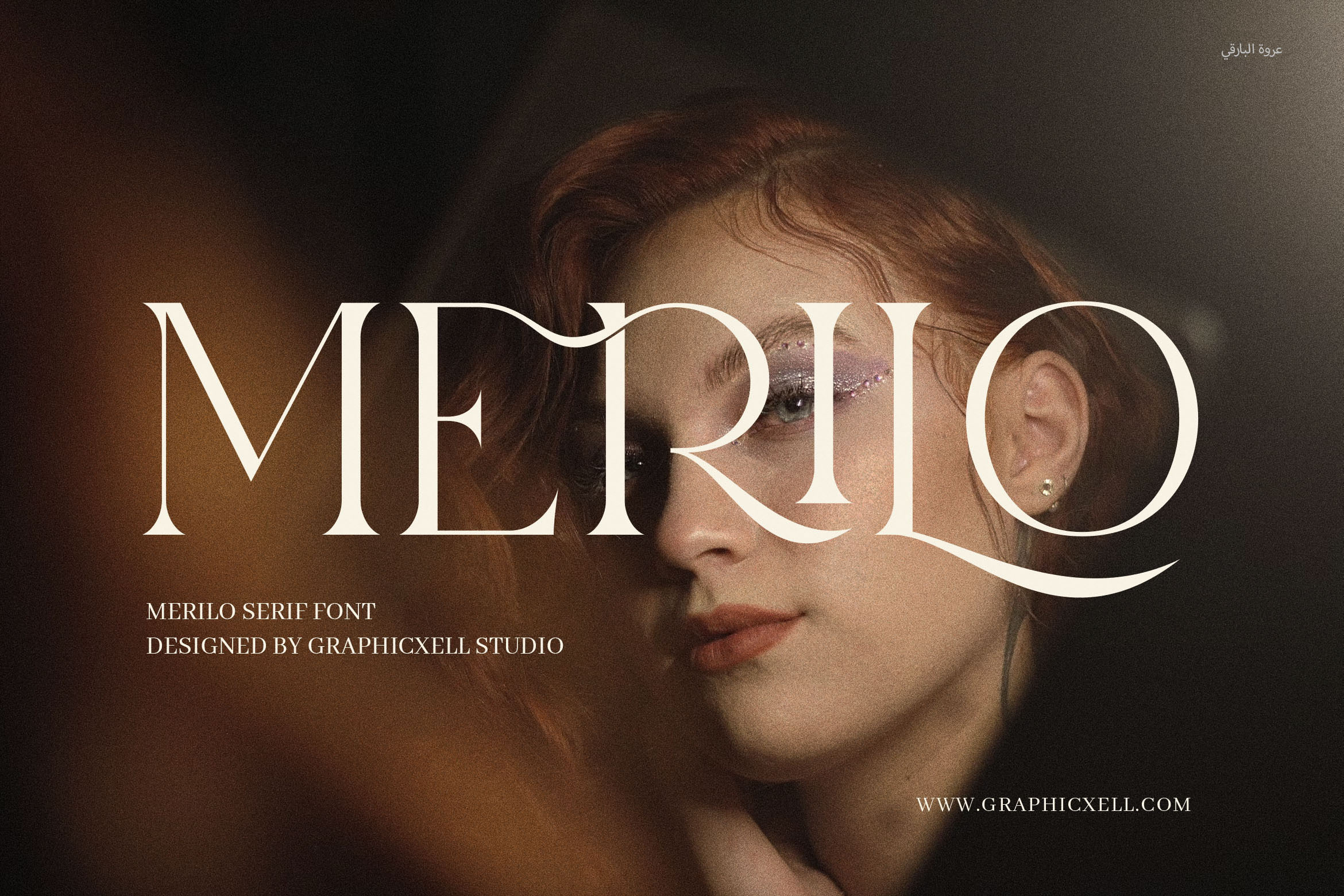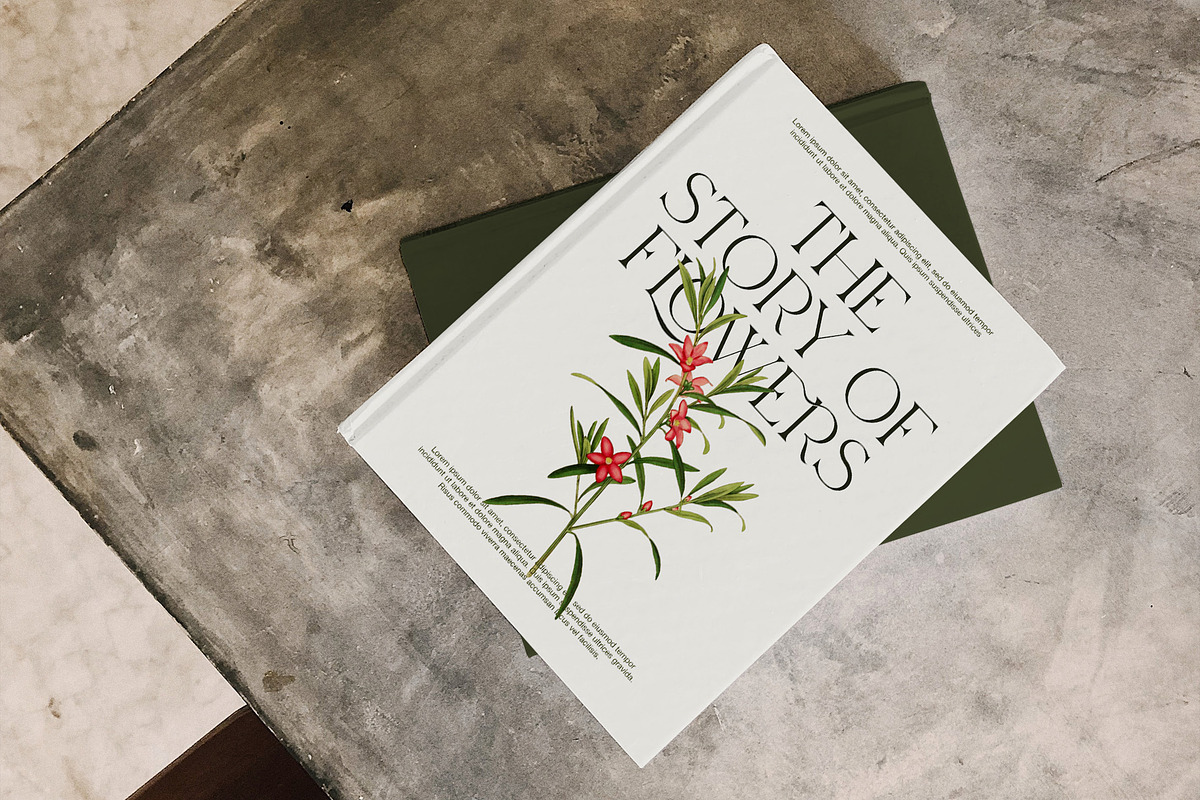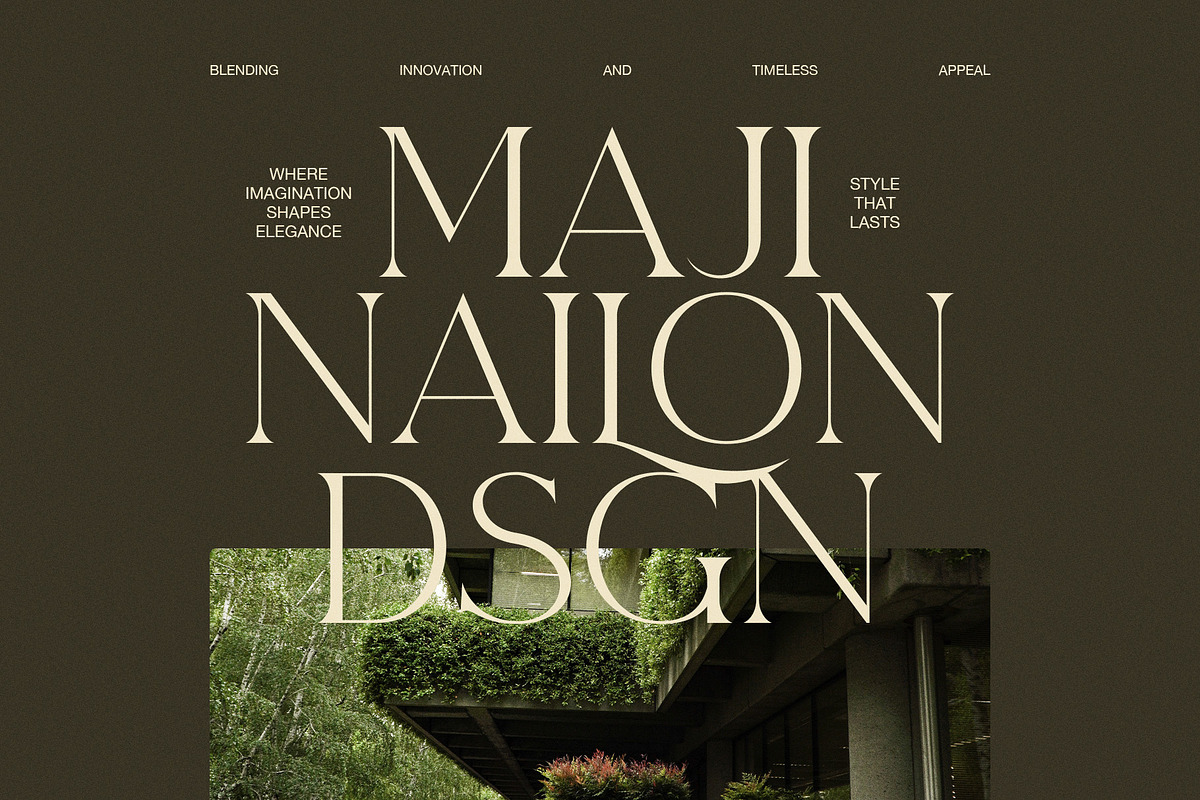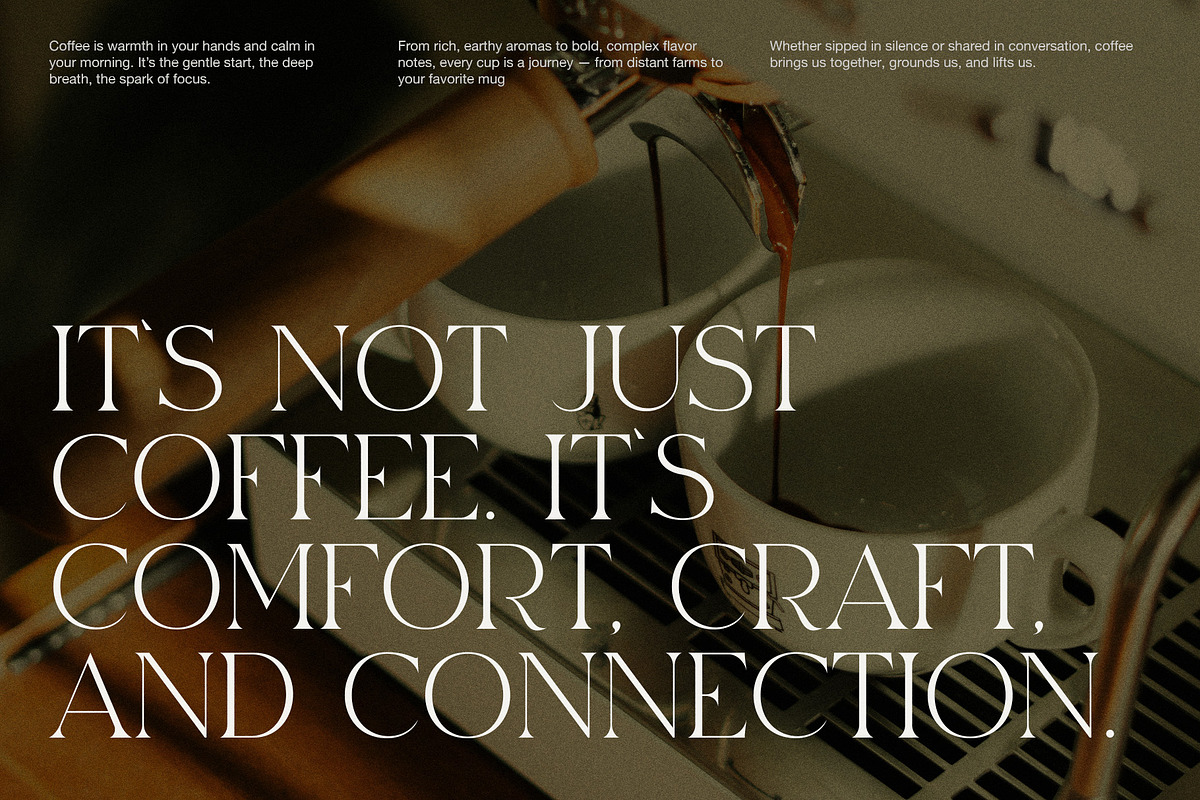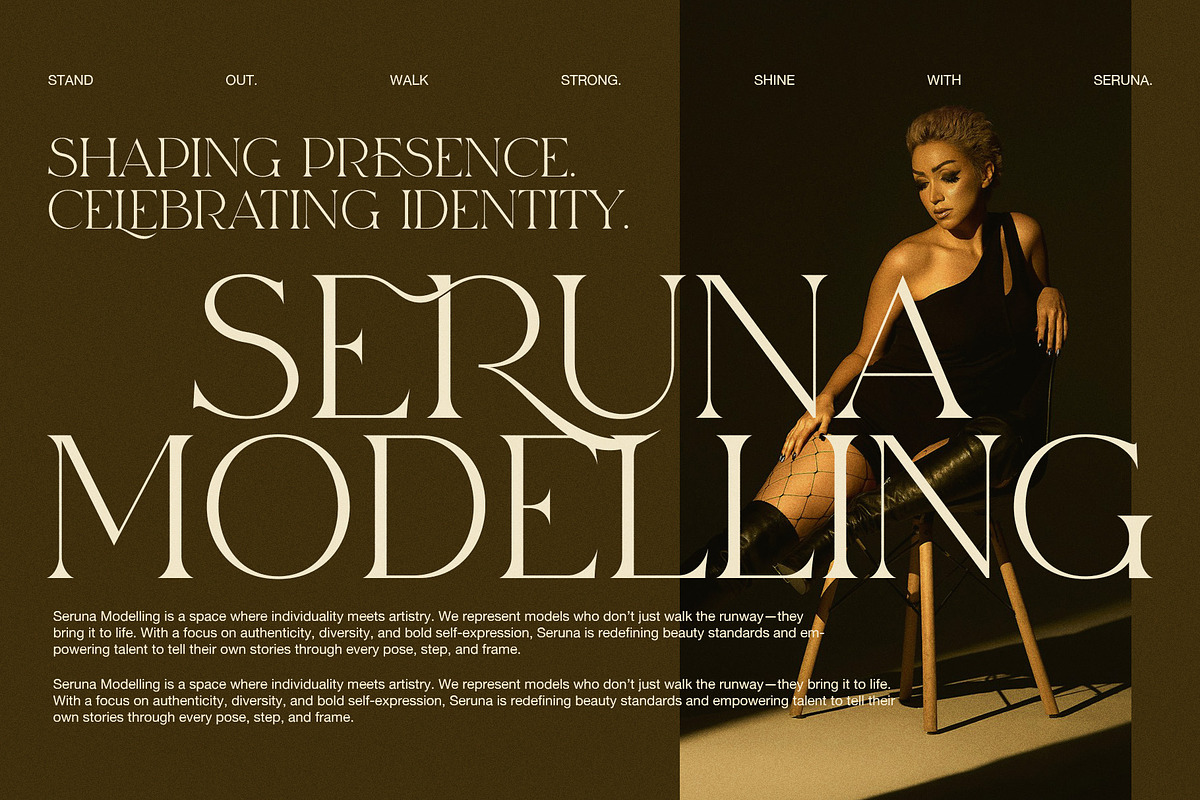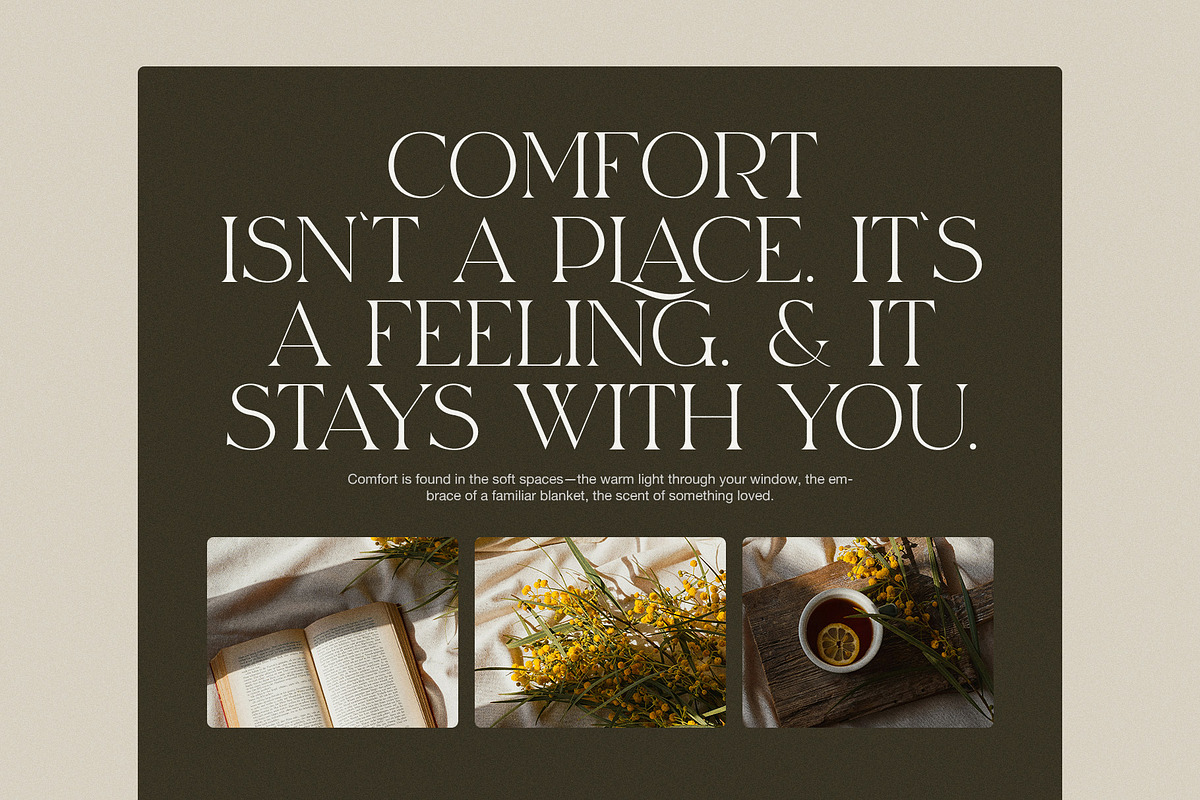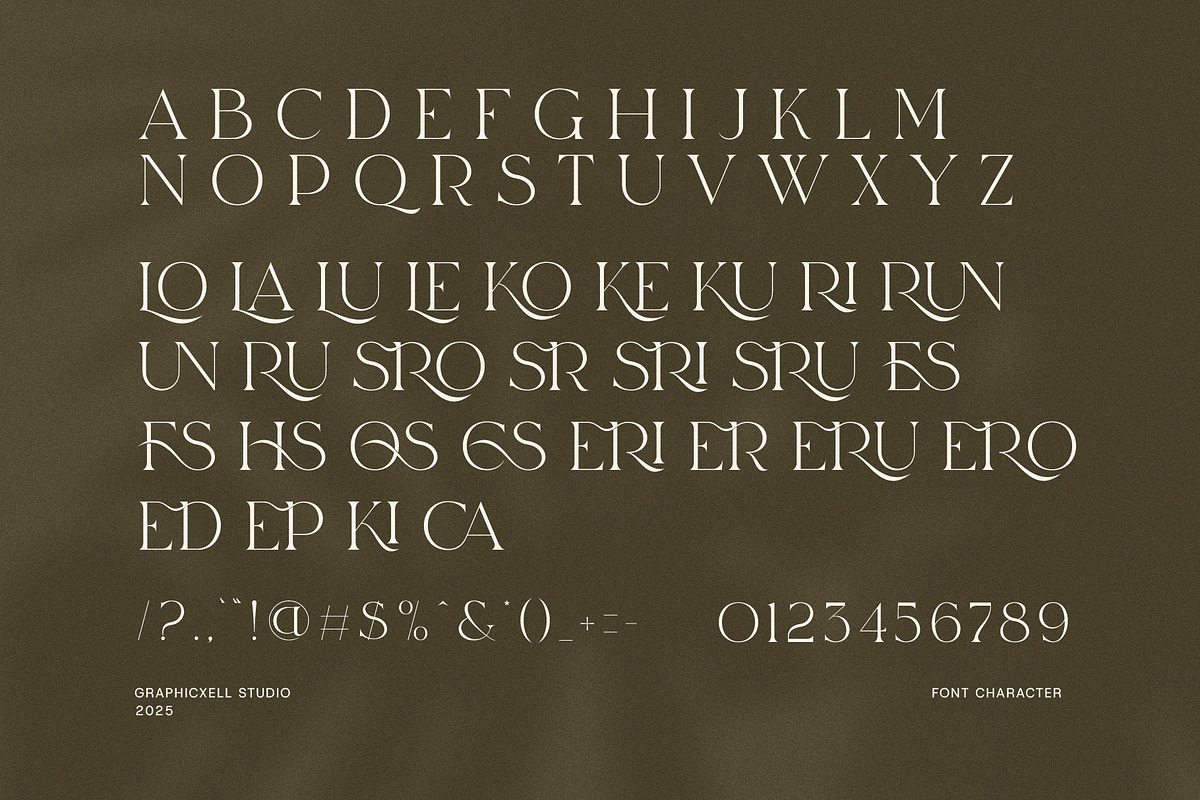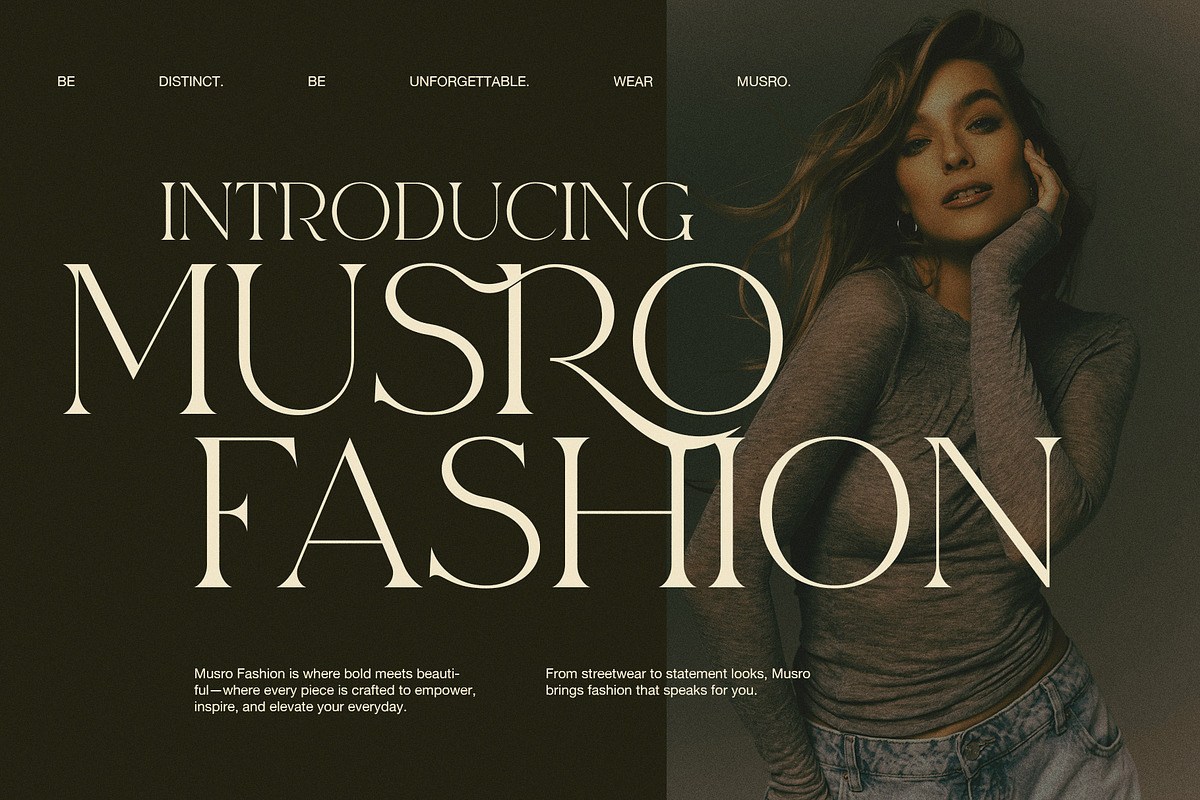
Merilo Elegant Serif Font
Merilo Elegant Serif Font – A Refined Statement of Sophistication and Modern Flair
Step into a world of timeless sophistication with Merilo Elegant Serif, a modern serif typeface that blends classical charm with contemporary elegance. Crafted with meticulous detail, Merilo is not just a font—it’s a visual experience designed to elevate your creative projects with poise, personality, and polished precision.
At its core, Merilo Elegant Serif is a versatile typeface that embraces the grace of traditional serif fonts while integrating modern design trends. With its delicate curves, refined contrast, and graceful serifs, Merilo exudes a quiet luxury that makes it ideal for brands that aim to be both memorable and meaningful. The balance between soft femininity and confident structure gives this font its distinctive character, making it perfect for elegant logos, upscale branding, chic editorial layouts, and refined product packaging.
Whether you're creating visual identities for boutique fashion labels, crafting magazine headlines, designing luxury packaging, or developing premium lifestyle websites, Merilo provides the perfect typographic voice. Its legibility and beauty go hand in hand, making it suitable for both display purposes and longer blocks of sophisticated text.
Key Features of Merilo Elegant Serif:
High-contrast letterforms for a striking and upscale appearance
Unique letter shapes that combine traditional serif structure with a modern twist
Smooth curves and precise details that convey elegance and creativity
Full set of uppercase & lowercase letters, numerals, punctuation, and multilingual support
Designed for both digital and print applications—ideal for web design, branding, advertising, and more
Merilo's design embodies a certain storytelling quality. Each character is crafted with intentional elegance, allowing your words to carry an emotional weight and refined aesthetic. From haute couture catalogs to artisan food labels, from minimalist wedding invitations to curated Instagram posts—Merilo brings a sense of prestige and editorial beauty to any project.
Its refined yet approachable style ensures that your message is not only seen, but remembered. Merilo doesn’t shout—it speaks clearly and beautifully, making it an excellent choice for brands that want to appear confident, artistic, and well-crafted.
Popular Use Cases:
Fashion & beauty branding
Boutique product packaging
Luxury blog headers and magazine editorials
Wedding stationery & invitations
Logo design for high-end businesses
Elegant signage and social media visuals
Whether you're a designer working on a premium rebrand or a small business owner curating a tasteful online presence, Merilo Elegant Serif empowers your typography to speak volumes. With just the right mix of bold and delicate, this font captures modern elegance like no other.
Discover the charm of classic beauty reimagined for today’s design landscape with Merilo Elegant Serif. It’s more than a font—it’s the visual signature of sophistication.